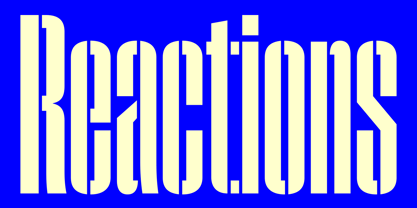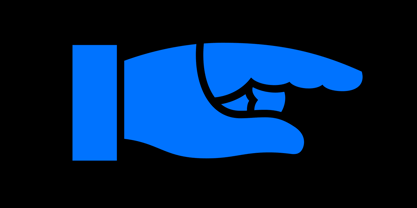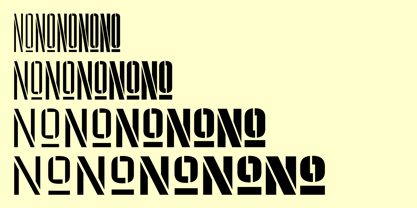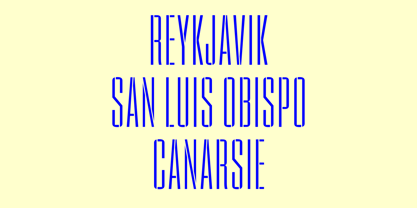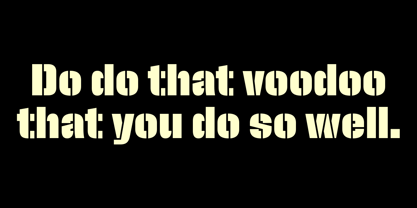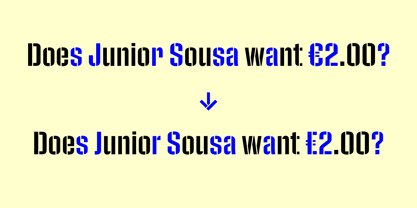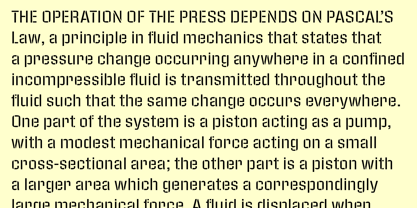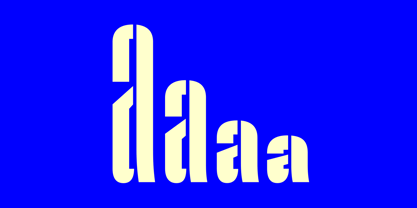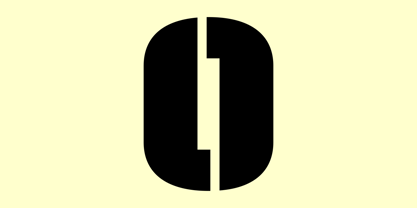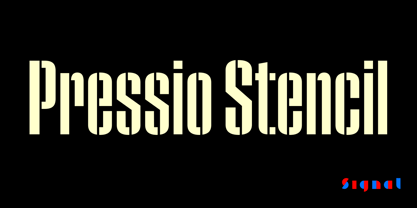
Pressio Stencil
by Signal Type Foundry
The Pressio Stencil Font Family was designed by Max Phillips and published by Signal Type Foundry. Pressio Stencil contains 20 styles and family package options. More about this family
Pressio Stencil brings Pressio’s square counters and superelliptical curves to the stencil genre. The result is Mid-century Modern with a touch of packing crate. With four widths and five weights, it’s far more versatile than most stencil families. The clarity of its construction makes it surprisingly legible in text sizes. Like its solid sister, it includes a set of stylistic alternates to round off some of the unexpectedly sharp corners of letters like S, s, and a. And, of course, it features case-sensitive punctuation and delimiters, as well as support for over 100 languages. A guide to Pressio Stencil’s stylistic alternates and special characters can be downloaded here.
Designers: Max Phillips
Foundry: Signal Type Foundry